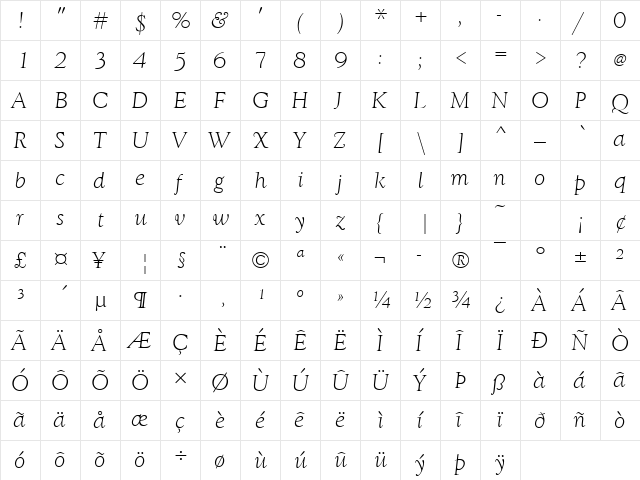
GoudyWtcTLig Italic
Design Context for GoudyWtcTLig Typeface
GoudyWtcTLig offers clean, dependable letterforms without strong stylistic allegiance, making it a practical choice for designers who need flexibility. The dynamic lean of this cut emphasises speed and emphasis in any layout.